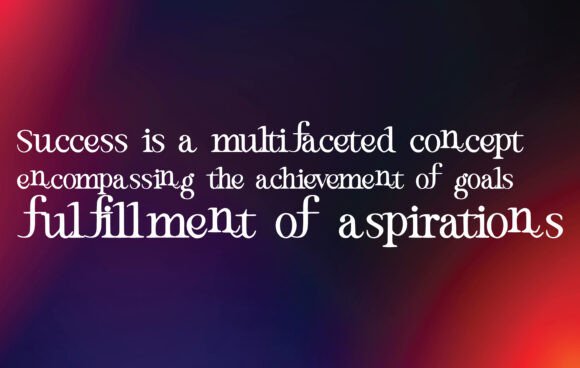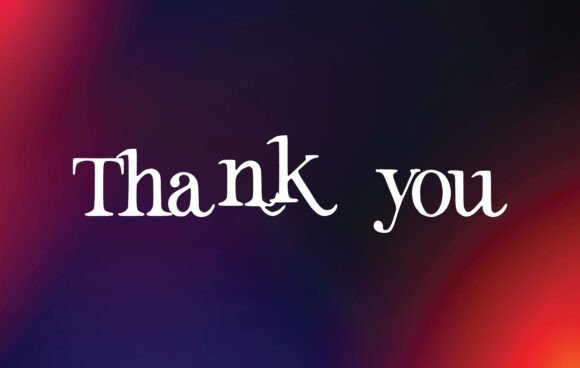
The Magic of the Caribou Font: Bringing Creativity to Life
There’s nothing quite like the thrill of having a brilliant idea strike at 3 am. The world is quiet, your mind is racing, and the possibilities seem endless. It’s moments like these that remind us why we became designers in the first place – to bring our imagination to life and share it with the world. And, for many of us, the right font can make all the difference.
Enter the Caribou Font, a beautiful and elegant handwritten font that’s sure to elevate your creative endeavors to new heights. Whether you’re crafting a logo, branding a new business, or simply looking to add a touch of whimsy to your typography, Caribou Font is the perfect choice. Its unique character and charm make it a valuable asset for any designer looking to add a personal touch to their work.
With the Caribou Font, the possibilities are endless. From eye-catching logos to memorable quotes, this font has the power to take your ideas and turn them into something truly special. So why settle for ordinary when you can have extraordinary? Try the Caribou Font today and discover a whole new world of creative possibilities.
- Unique Characteristics: The Caribou font features a unique blend of modern and traditional elements, making it an ideal choice for designs that require a touch of elegance and sophistication.
Designer Review: Caribou Font
Overall, I have mixed feelings about the Caribou font. On one hand, I appreciate its unique and quirky style, which can add a touch of personality to a design.
- Expressive flair: The Caribou font has a distinct, hand-drawn feel that can add a human touch to digital designs.
- Good legibility: Despite its irregular shapes, the font is relatively easy to read, making it suitable for body text.
- Creative possibilities: The font’s playfulness lends itself to creative applications, such as titles, headings, and quotes.
- Limited versatility: The Caribou font may not be the best choice for formal or professional designs, as its quirky style may come across as unprofessional.
- Difficult to customize: The font’s unique shape makes it challenging to customize or modify, which may limit its use in certain design scenarios.
In conclusion, while the Caribou font has its strengths, its limitations may make it less versatile than other font options. However, it can still be a great choice for designers looking to add a touch of personality to their work.
Tips for Getting the Most Out of Caribou Font
For optimal results, pair the Caribou font with a clean and simple design. Avoid using too many bold or italic styles, as this can make the text difficult to read. Experiment with different font sizes and colors to create visual interest.
The Caribou font is ideal for use in creative projects, such as graphic design, branding, and marketing materials. It’s also suitable for use in educational and editorial contexts, where a clean and readable font is essential.